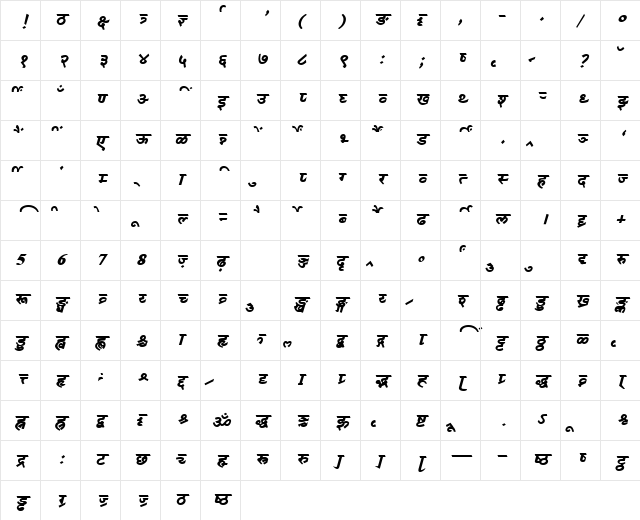
AkrutiDevBharani BoldItalic Free Font
AkrutiDevBharani BoldItalic
AkrutiDevBharani Family
Complete AkrutiDevBharani BoldItalic glyph index. Displaying only characters natively supported by AkrutiDevBharani BoldItalic font.
Design Context for AkrutiDevBharani
AkrutiDevBharani is a composed and adaptable typeface that performs quietly and consistently across a wide range of design contexts. The slanted form adds forward momentum and visual energy. Its bold stroke weight gives it real presence on the page.
Pro Tip: Use AkrutiDevBharani for emphasis, pull quotes, and subheadings where its slanted energy can add rhythm to the layout.